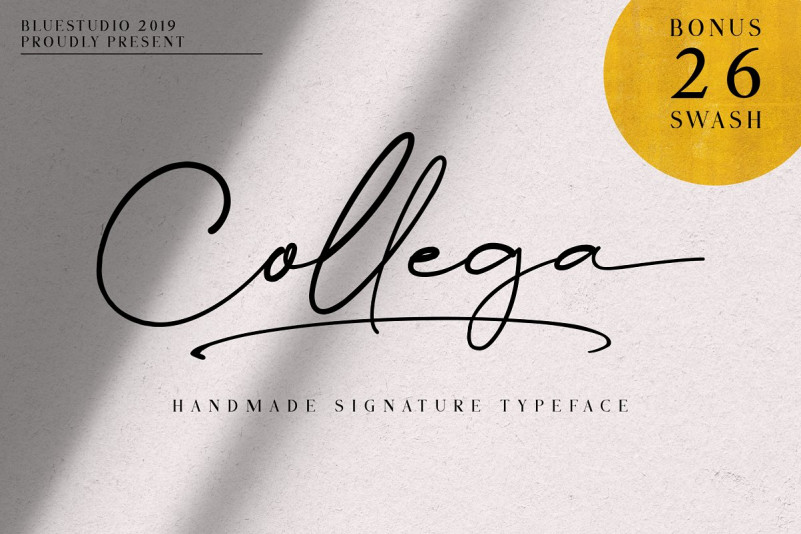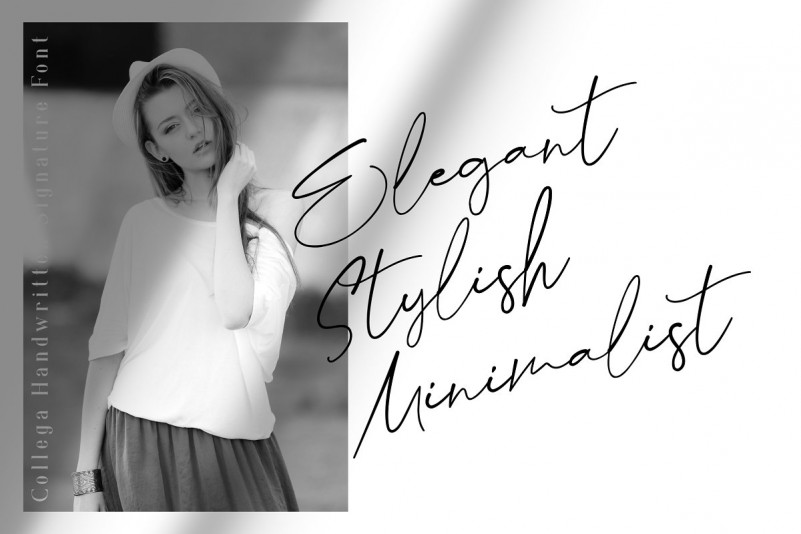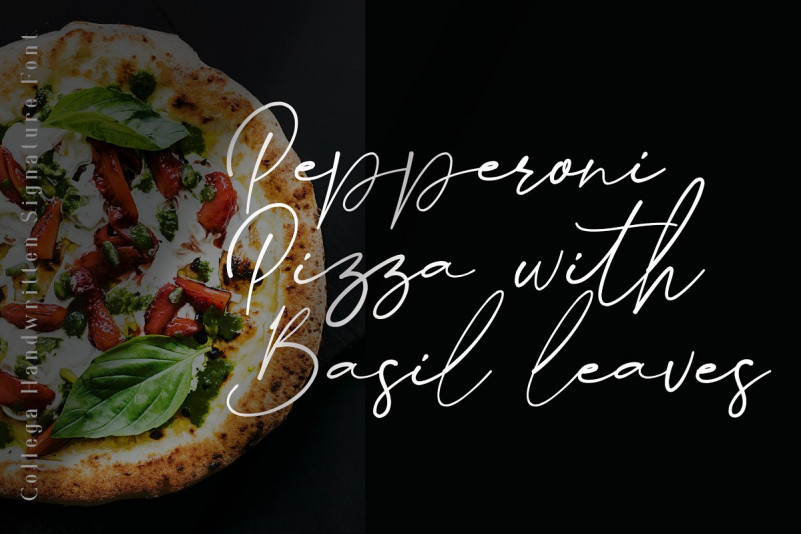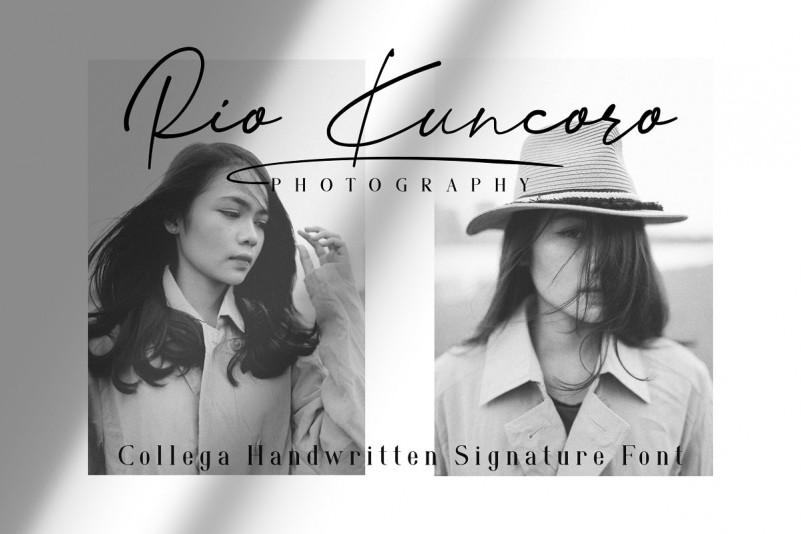
Collega Signature – Demo Font
Collega Signature Font is a modern handmade signature font by Bluestudio. This is a natural & modern handwritten font. Sweet, charming and full of authenticity. Introducing Collega Font. It’s made to resemble hand scratches, so it looks like a natural style like your own hand scratches. Collega Signature offer beautiful typographic harmony for a variety of design projects, including watermark, logos,branding, wedding designs, social media posts, advertisements, product designs, magazines and others.